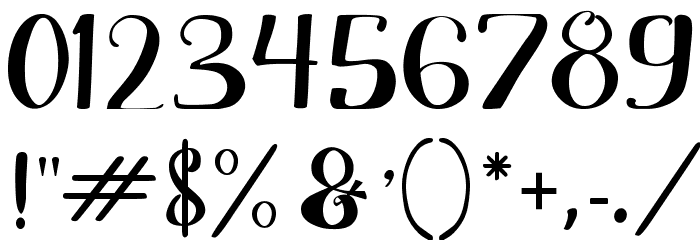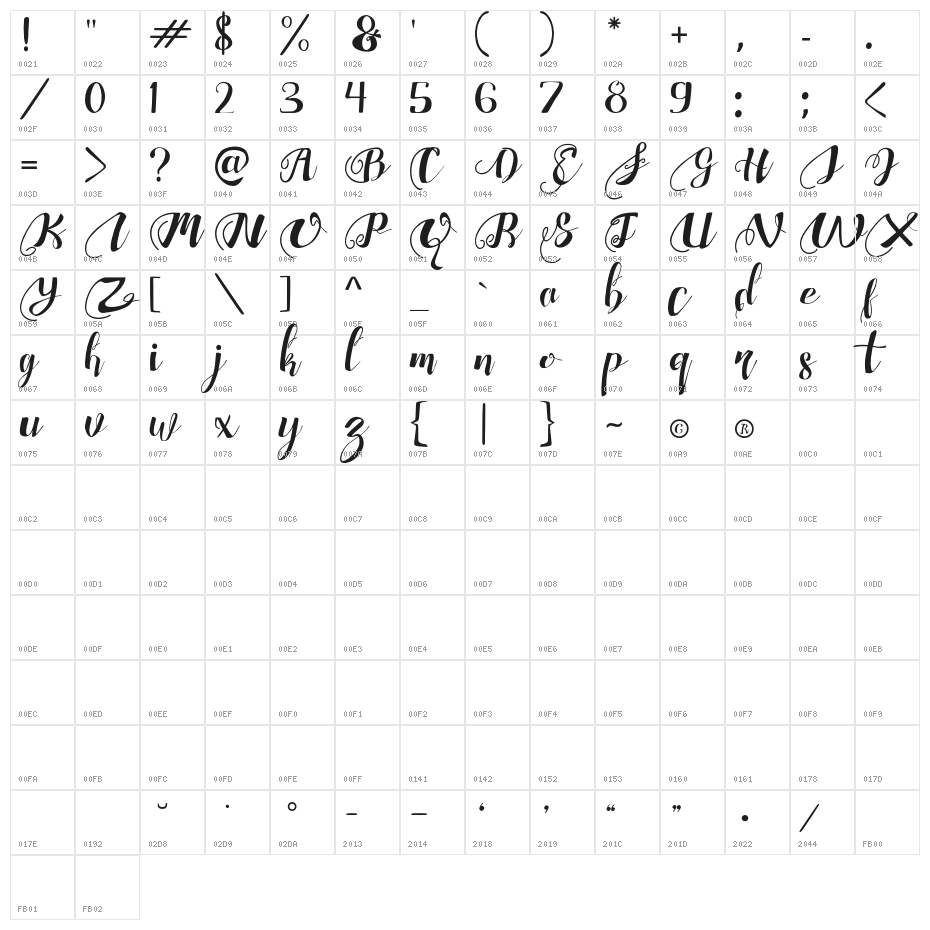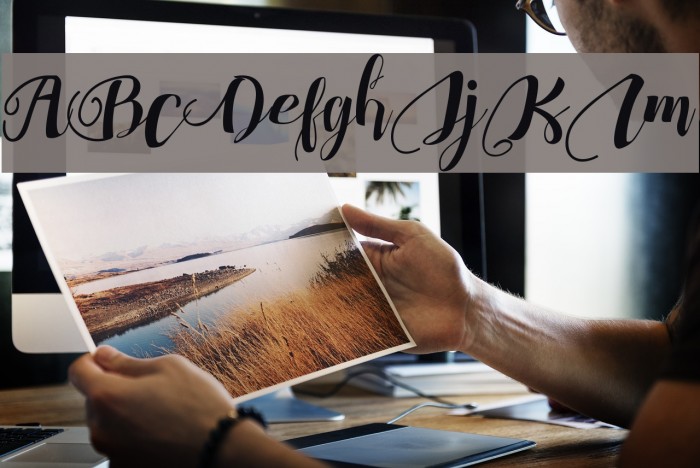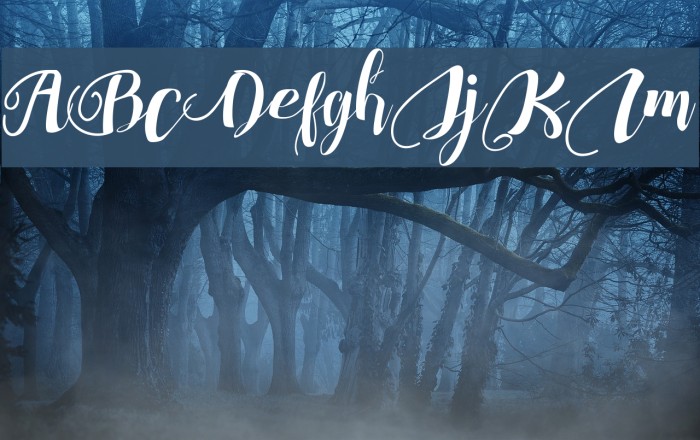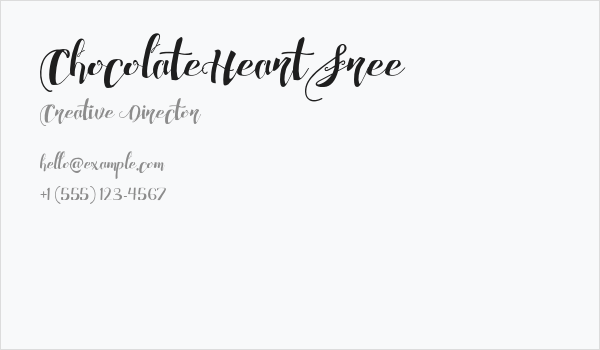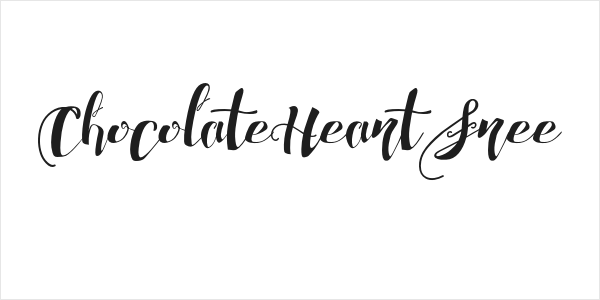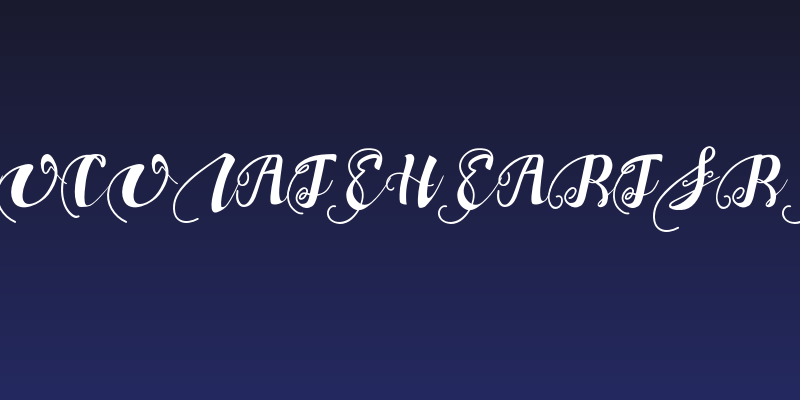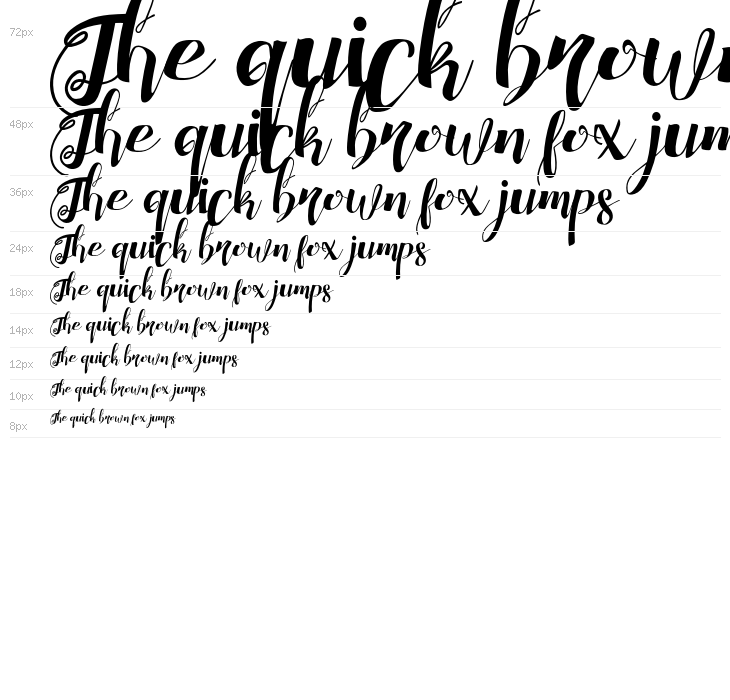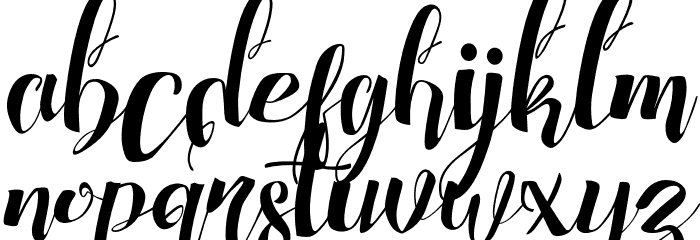
ChocolateHeartFree Font
ChocolateHeartFree Description
This font features an elegant and flowing script style with a modern twist. The uppercase letters are characterized by their elaborate swirls and loops, giving them a decorative and sophisticated appearance. The lowercase letters maintain a consistent flow, with some characters extending below the baseline, adding to the font's graceful aesthetic. The numerals are bold and slightly condensed, complementing the overall style. Special characters are designed with the same attention to detail, ensuring a cohesive look across all glyphs. This font's intricate design makes it suitable for projects that require a touch of elegance and flair.
| Proposed Projects | Ideal for wedding invitations, branding, greeting cards, and elegant packaging designs. |